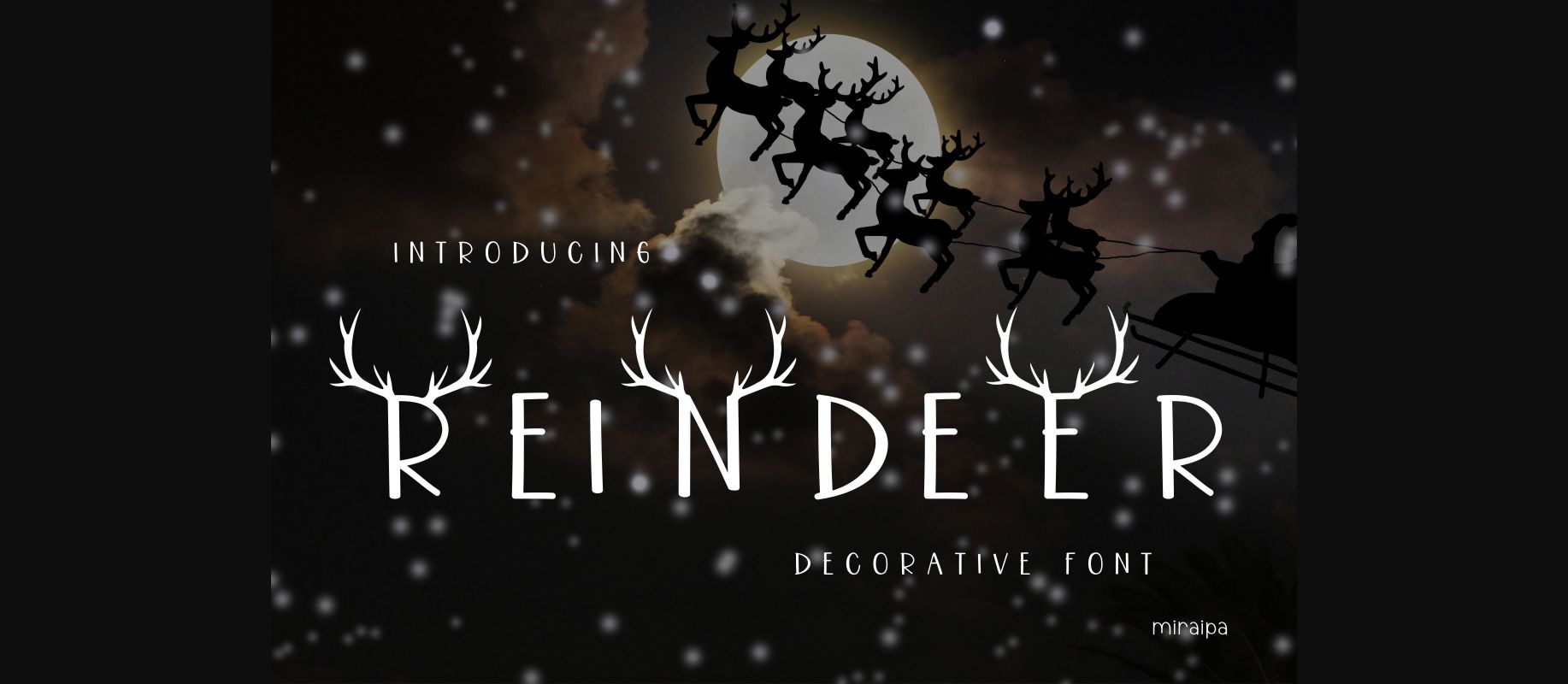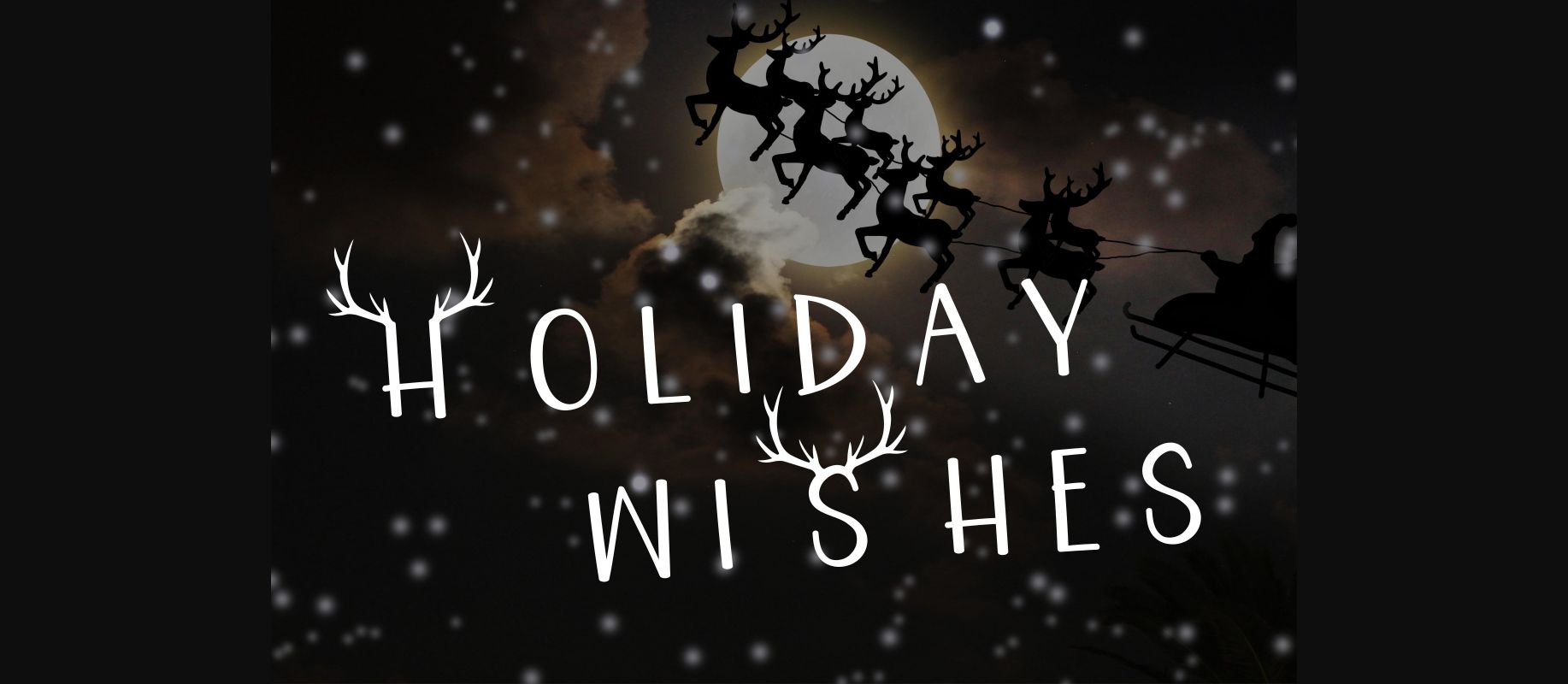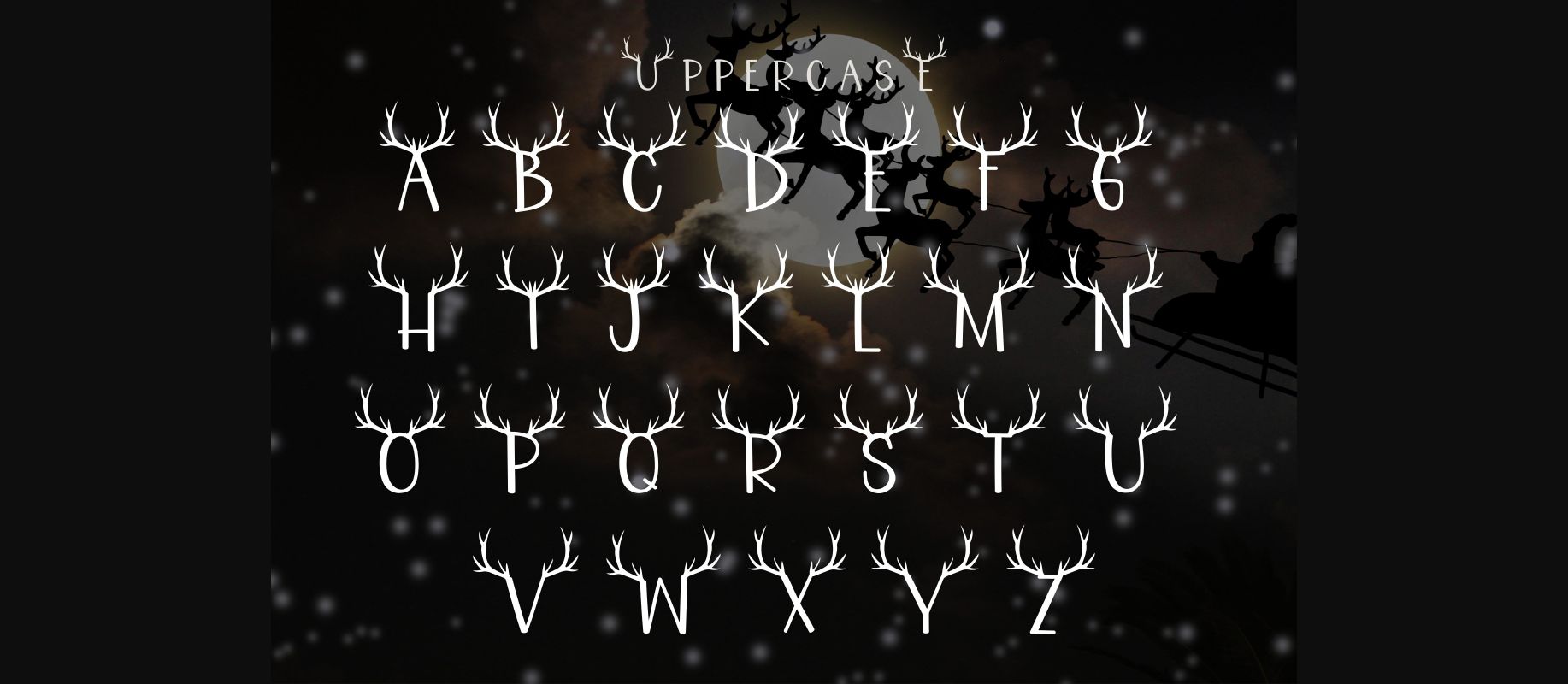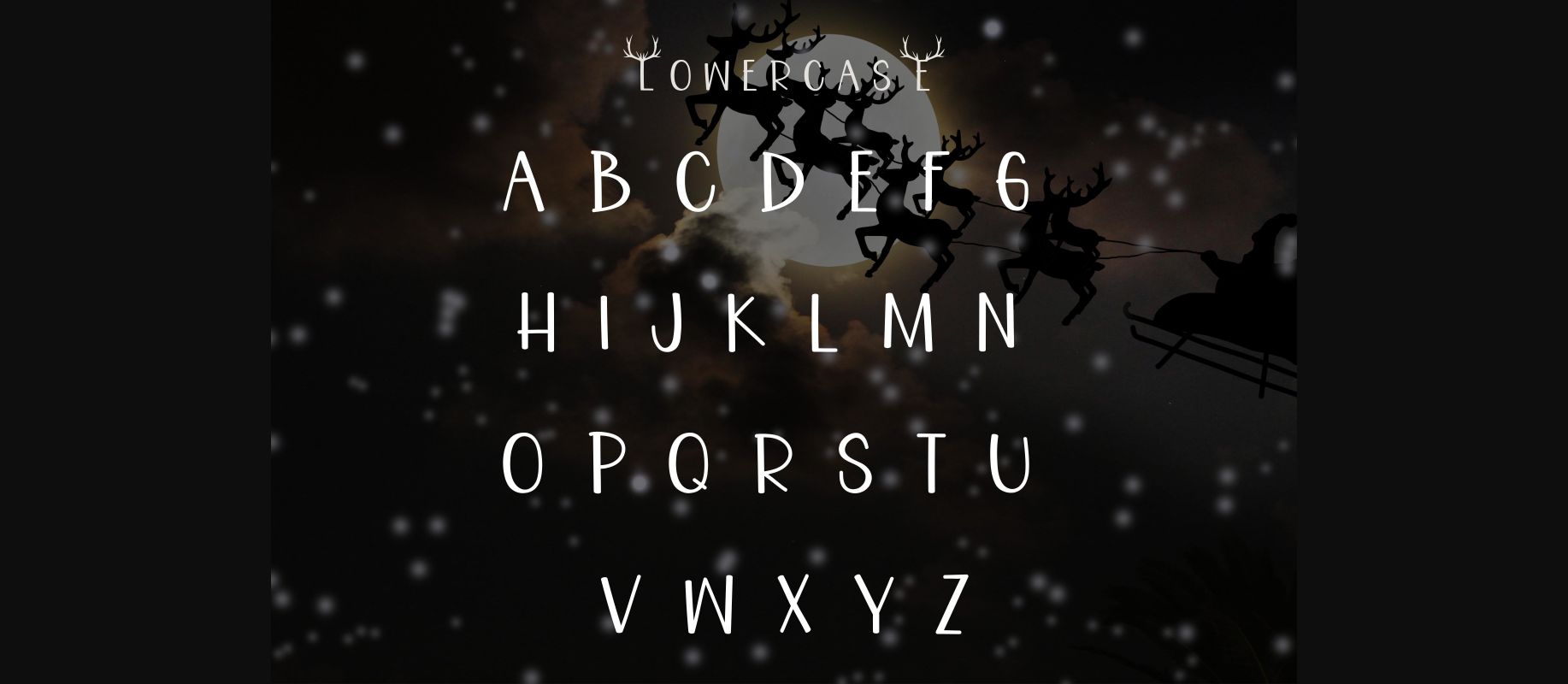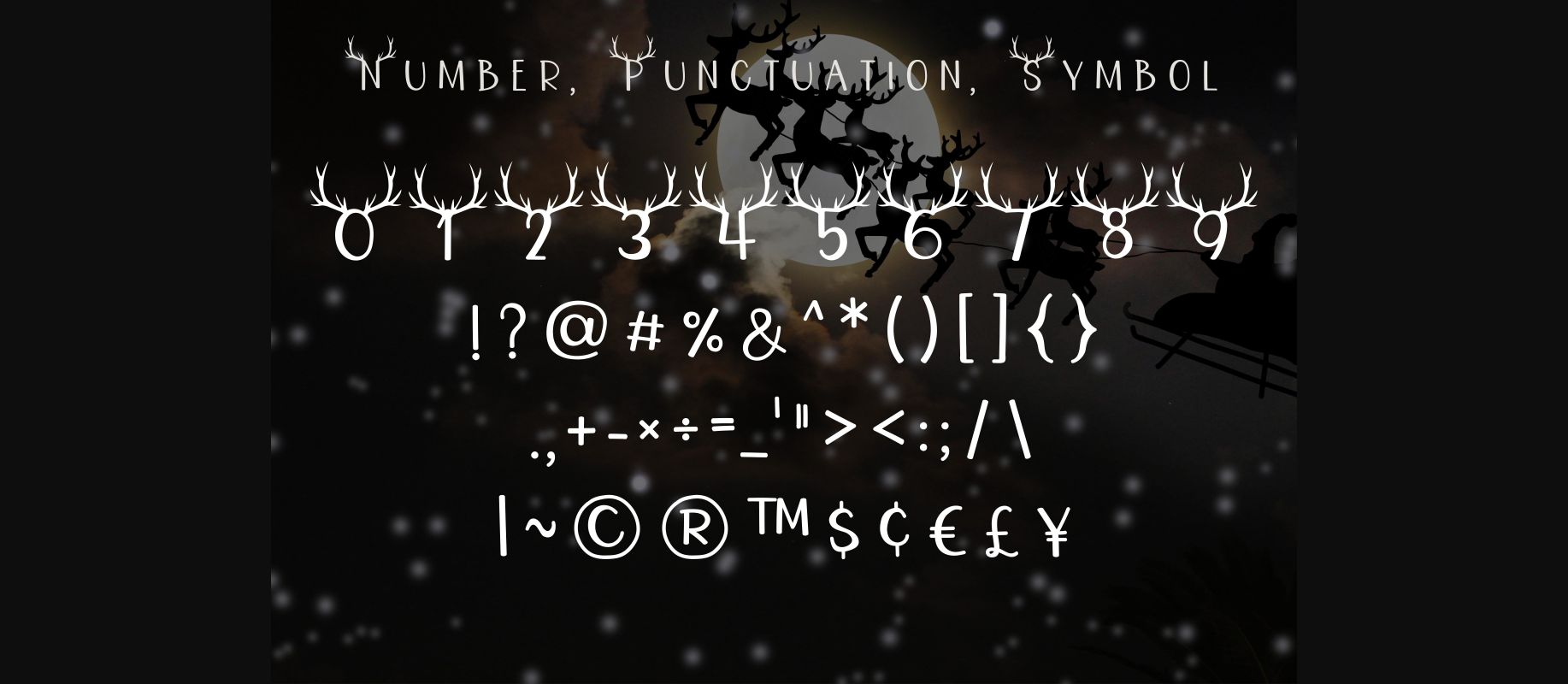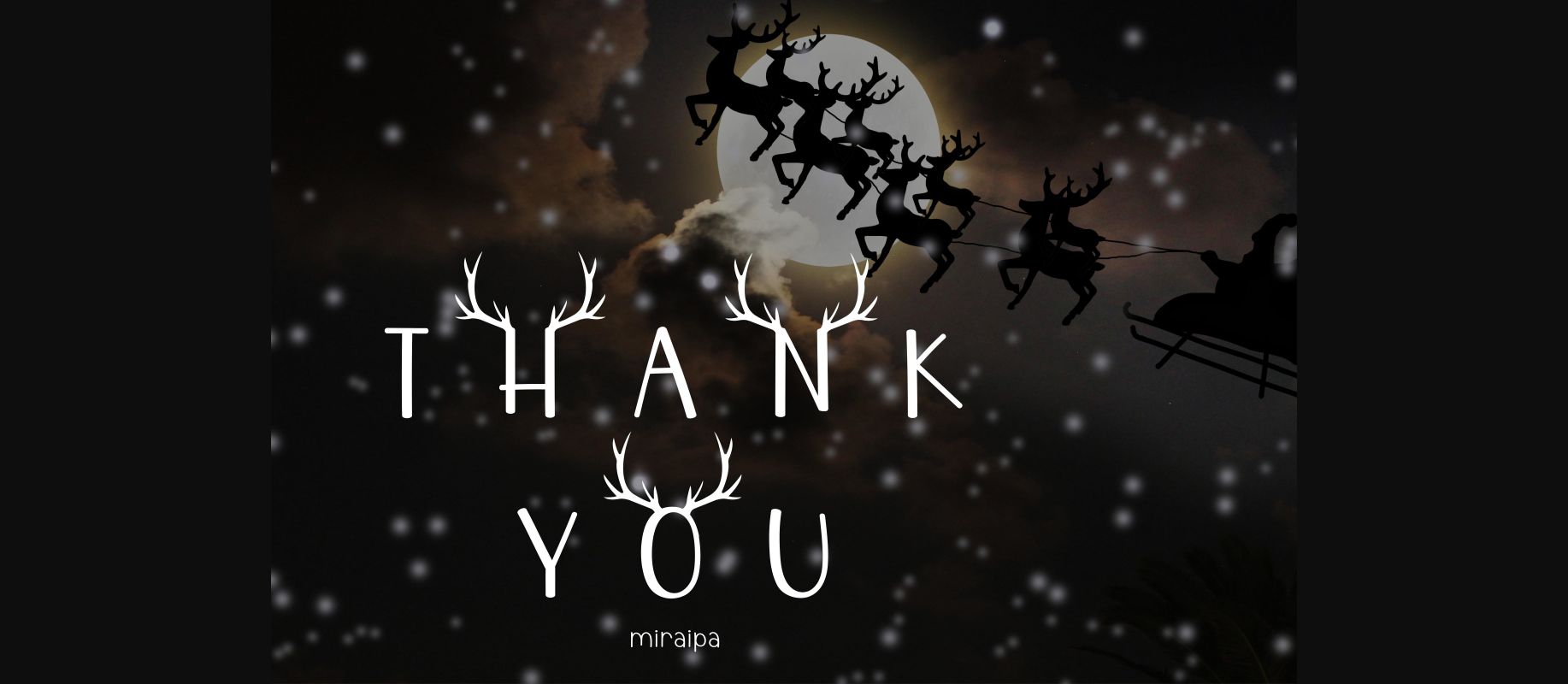
Reindeer Font
About Reindeer Font
Reindeer is a decorative font designed in a cute festive style. You can adapt it to your own awesome projects such as party decorations, party invitations, posters, blogs, clothing, greeting cards, social media posts, or anything that needs a friendly touch. Add it now to your fonts library, and it will bring any of your DIY projects to life.